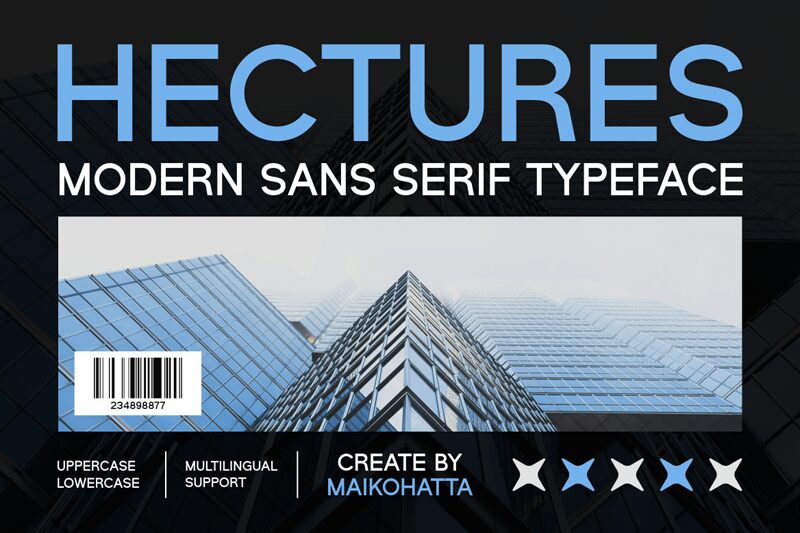
HECTURES
Hectures font by Gilang Ternadho of Maikohatta is a free sans serif typeface that feels crisp, upright, and quietly confident. Its narrow proportions, clean curves, and even stroke weight give it a tidy, engineered look that reads clearly at a glance. The rounded inner corners soften the structure just enough, so it comes across as modern and human rather than cold or machine-like.
Using Hectures, you get a strong, legible voice for tech branding, product packaging, wayfinding, posters, headers, and bold social graphics. The tight, consistent rhythm lets words stack neatly, which works beautifully in vertical layouts and condensed spaces. This free font pairs well with a simple, neutral grotesque for body copy—set Hectures larger for titles and keep the companion text a size or two smaller to let its streamlined character lead.